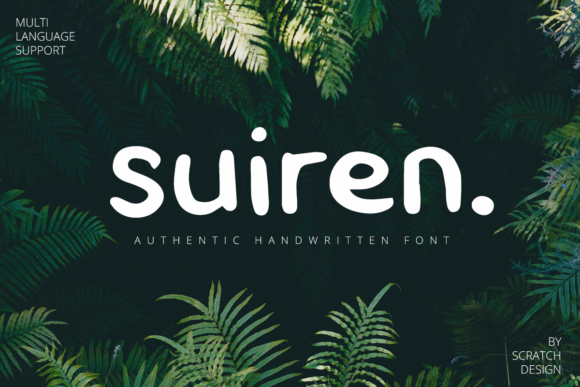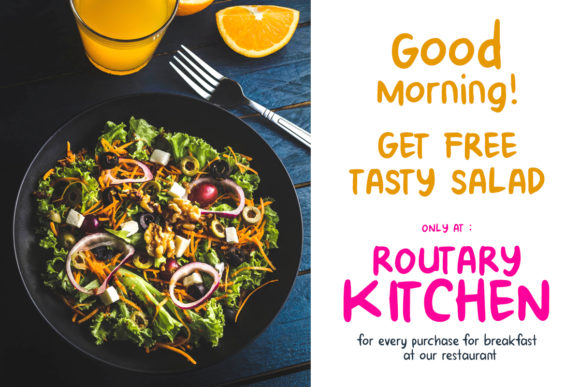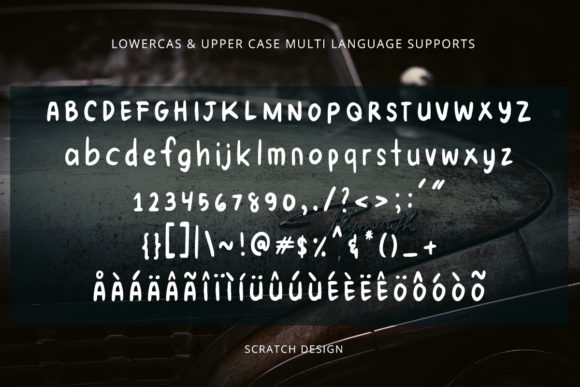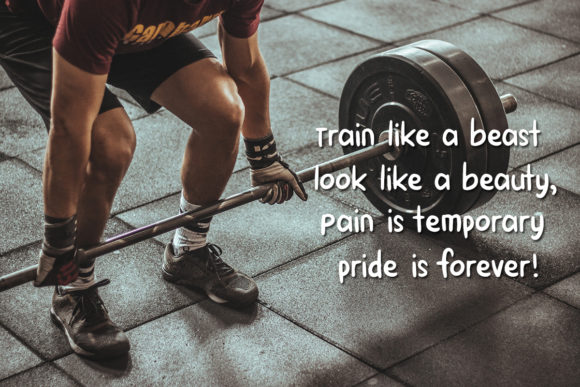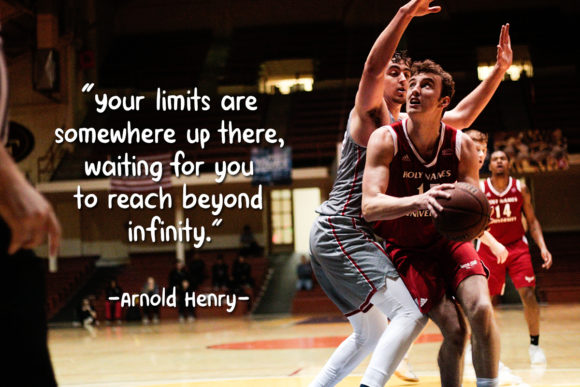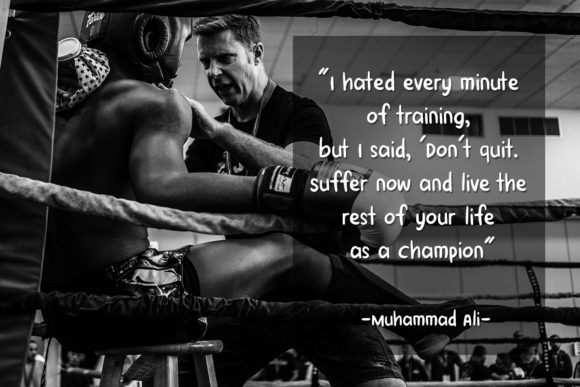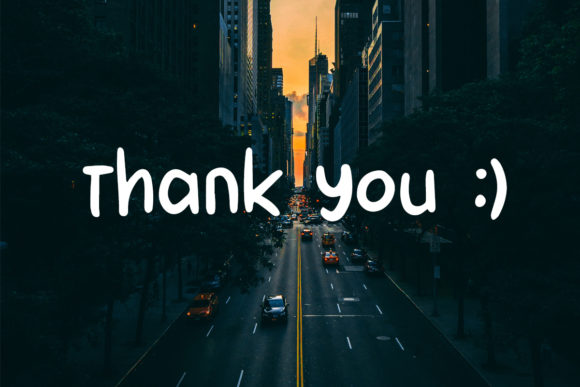
HomeScript FontsSuiren Font Script Fonts Suiren Font FacebookXPinterestWhatsApp Suiren Font Poster 2 Suiren Font Poster 3 Suiren Font Poster 4 Suiren Font Poster 5 Suiren Font Poster 6 Suiren Font Poster 7 About Suiren Font Suiren is a handwritten font with an organic appearance. Fall in love with its playful look & feel. DOWNLOAD ON CREATIVE FABRICAThis font is sold and delivered by Creative Fabrica. Font Canyon may earn a commission if you buy through this link. People also explored Love Flower Monogram Font Boho Beach Font Opelika Font Cassnoary Font Beach School Font Wiggleluck Font Hatchero Font Engagement Time Font Block Note Font 445 0 TagsSuiren Font Previous articleHappy Halloween FontNext articleSelfies Font LEAVE A REPLY Cancel reply Comment: Please enter your comment! Name:* Please enter your name here Email:* You have entered an incorrect email address! Please enter your email address here Website: Save my name, email, and website in this browser for the next time I comment. Personal Use Free BD Alm Personal Use Free Read more about this font Harmony Personal Use Free Read more about this font Ciggs Personal Use Free Read more about this font Rellista Script Personal Use Free Read more about this font BLOG Top 10 Handwritten Fonts That Elevate Your Designs Top 10 Handwritten Fonts That Will Elevate Your Designs Handwritten fonts bring a warm, personal touch to every creative project. Whether you're designing logos, invitations,... Fonts That Capture the Spirit of New York City Free Fonts Risk: Why Free Fonts Can Be Dangerous for Designers Top 7 Google Fonts Alternatives for Faster and Privacy-Friendly Web Design (2025)